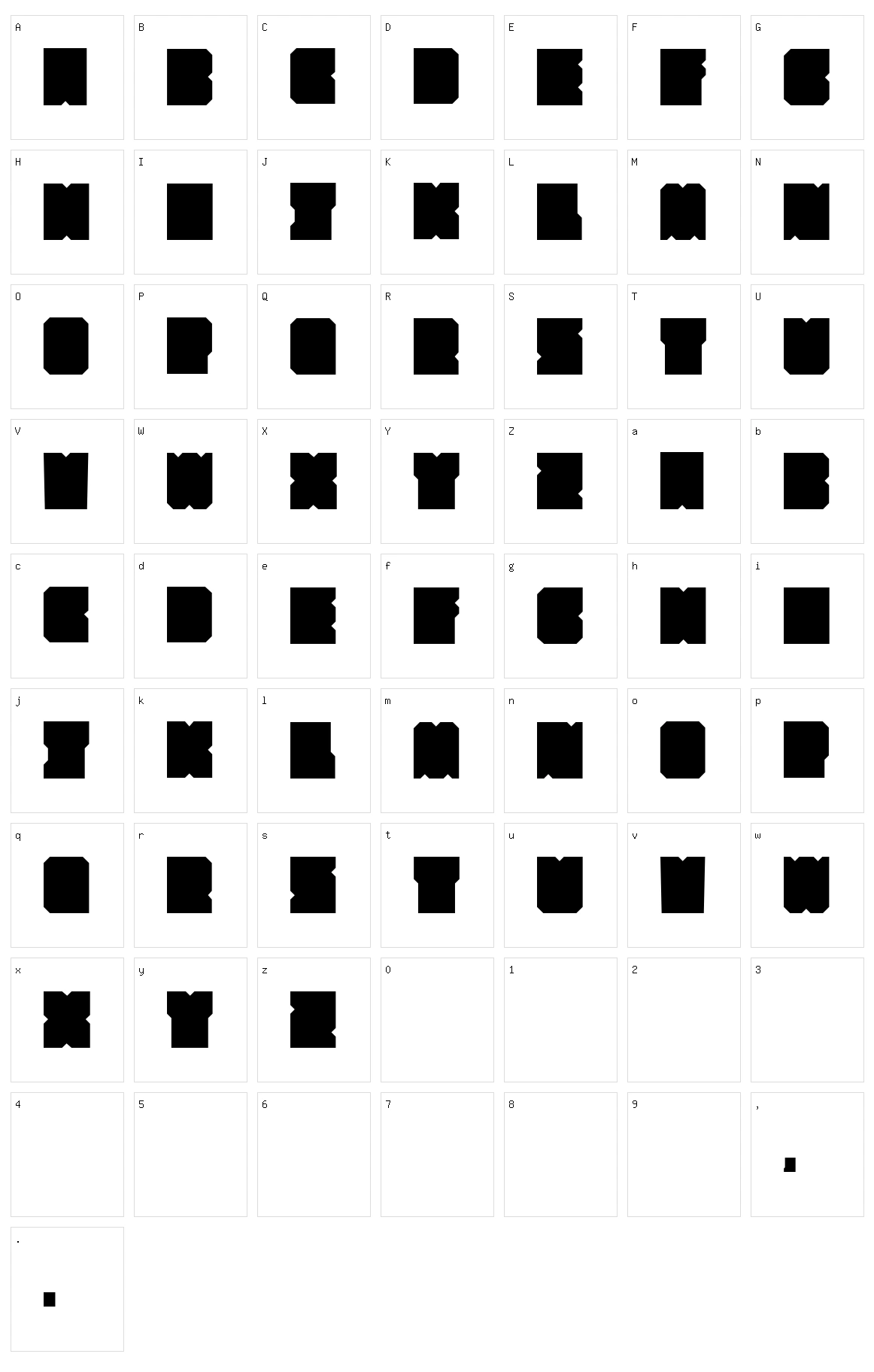
The free font SubSquare is carefully designed by Vinicius Acquesta, showcasing a thoughtful balance of creativity and usability and falls under the Square font style. When you download the ZIP file, it contains only 3.26 KB of font files, making it lightweight and quick to download. Please review the license details below to understand permitted usage and distribution rights. If license information is not available, we recommend using this font for personal projects only or contacting the author directly for commercial usage permissions.